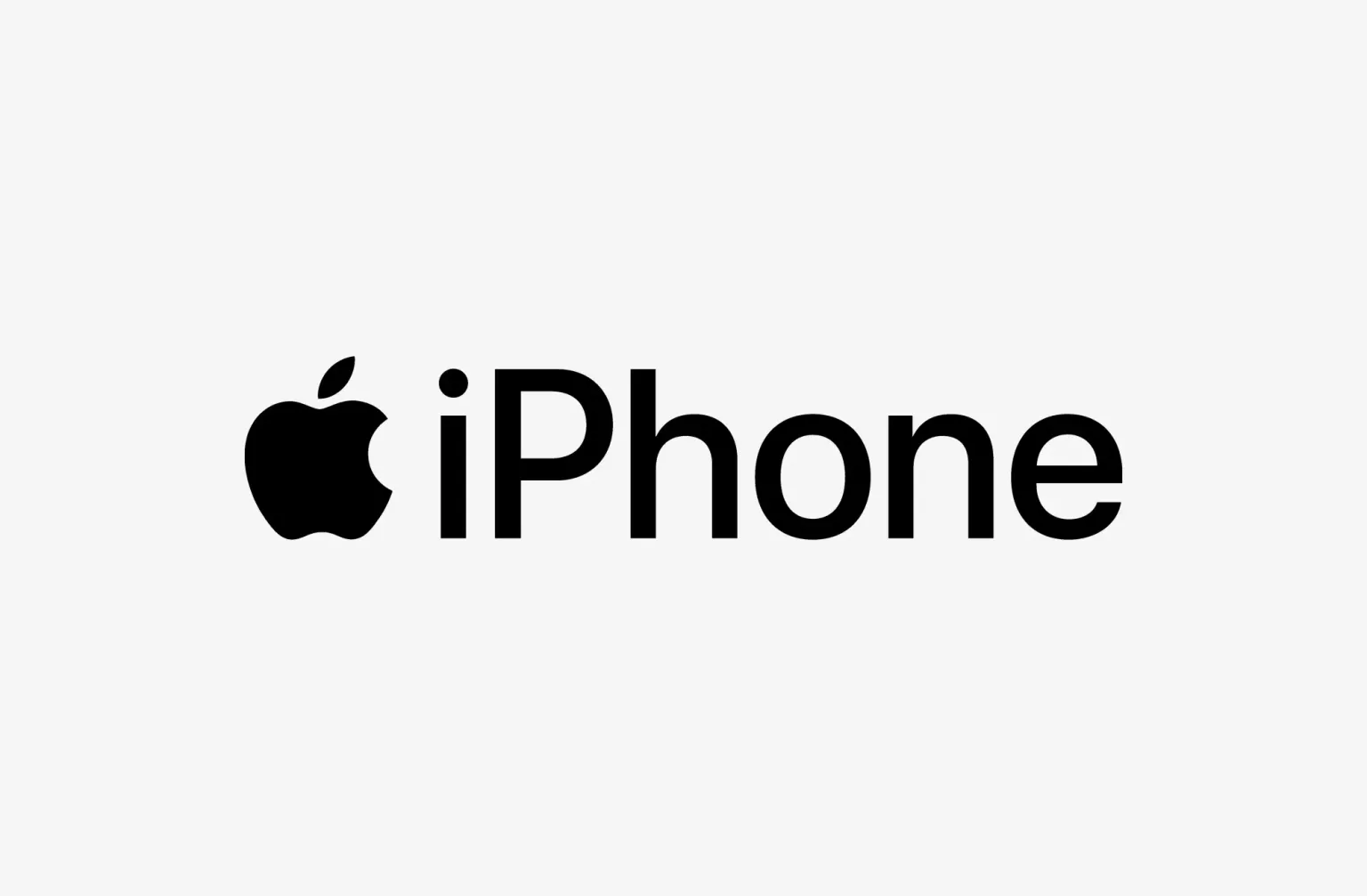
The iPhone Font refers to the distinctive typography used in Apple’s iPhone branding, reflecting the company’s commitment to sleek and modern design. Apple Inc. first introduced the iPhone lineup at Macworld Expo 9, an event held at the Moscone Center, where Steve Jobs unveiled the groundbreaking device. Running on the iOS platform, each new iPhone generation has become more advanced, offering users a seamless and sophisticated experience. Apple officially began operations in early 2007, with the first iPhone making its debut later that summer, marking a new era in smartphone technology.
The iPhone logo font represents minimalism, elegance, and precision—qualities that define Apple’s product aesthetics. Its clean and refined design contributes to the brand’s identity, symbolizing ease of use and technical excellence. This font enhances the luxurious appeal of the iPhone, reinforcing its reputation as a premium device. With its blend of cutting-edge technology and sophisticated visuals, the iPhone remains a sought-after gadget, particularly among high-end consumers who value both functionality and style.